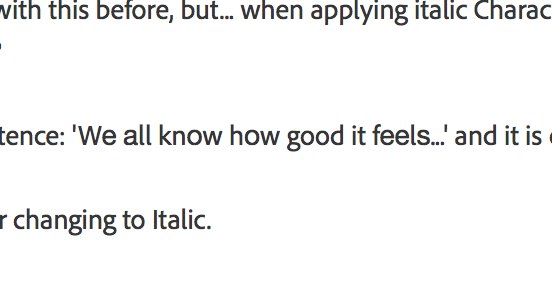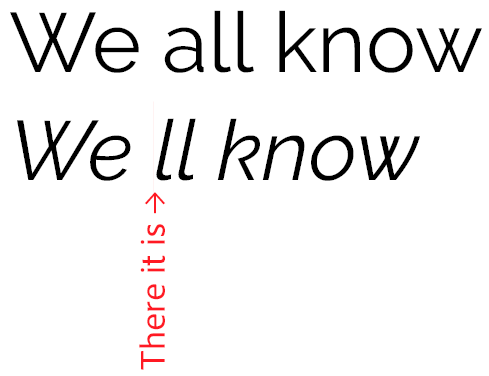
I have never came across with this before, but... when applying italic Character Style to a passage it makes some letters in different words disappear?
For example there is a sentence: 'Wе аll knоw hоw good it fееlѕ...' and it is changed to 'W ll knw hw good it flѕ'
My font is Raleway Regular changing to Italic.
Moreover BoldItalic / Light Italic / Thin Italic does the same.
Is there a way to fix this using Raleway font?
There are no less than 3 consecutive errors in play here. (All of them human errors, but by different persons.)
First: you should not mix Cyrillic and Latin characters. They may look the same (in some fonts), but they are not.
Second: Raleway contains Cyrillic characters in its Regular font but not in the Italics. (Also, they are there in Bold but, again, not in Bold Italic.) It may be a conscious design cho
I would guess that the font is corrupt, and would need to be replaced with a clean copy or a different font
Try it in another document and see if you can replicate the problem.
If I type in the missing letters when they are in italic they show up fine. And when I switch back to a non-itlic version they are fine too.
At first I tried to create new document - there is no such problem fith italic Raleway.
Then I deleted my previous Raleway font from Indesign Font folder and synced it from Adobe Typekit. But it doesn't have italic(((
Still trying figure out the reason.
What was the original source of the text, and how did you get it into InDesign? It looks it the vowels are some strange alternate characters, and those characters don't exist in Raleway Italic (a Google Font, so you can always freely download the latest version). Even on the forum they look odd. See screenshot below. They have a slightly higher x-height, and look like a grotesk font rather the humanist of the rest of the text.
So it's a question of how best to replace all those characters with the 'normal' ones. I've tried converting to Plain Text in TextEdit, but that didn't work.
On further inspection in InDesign's Glyph Palette, they're Cyrillic characters (so apologies for calling a non-Latin script 'strange'!). A few find & replace actions should fix it.
There are no less than 3 consecutive errors in play here. (All of them human errors, but by different persons.)
First: you should not mix Cyrillic and Latin characters. They may look the same (in some fonts), but they are not.
Second: Raleway contains Cyrillic characters in its Regular font but not in the Italics. (Also, they are there in Bold but, again, not in Bold Italic.) It may be a conscious design choice – Cyrillic Italic is much harder to draw than its roman forms – and it is "known" since at least the first released version that contained Italics:
Thanks for the Cyrillic! And I'm waiting for Cyrrilic in Italics
but this needs some better communication so you don't get surprises such as this one.
Third: unsupported characters are usually indicated in a font by a clear, distinct glyph. In some fonts it's a bland open rectangle, where other font designers get creative and do stuff like this
Not so in Raleway; it uses an extremely thin space character for this. If you zoom in very far on your InDesign text, you can see the thin pink line where the missing character is supposed to be.
So, what can you do to fix this "using Raleway font"?
1. Replace all of the unexpected Cyrillic characters in your document with the correct Latin forms.
2. Contact the web site where you downloaded the font from and ask them to inform about the missing characters in some styles.
3. Contact the font designer and ask for a more distinct "missing glyph" glyph.
4. Download the latest version – 4.0020, as of Nov. 2016 – directly from the source: GitHub - impallari/Raleway: Raleway Fonts and use this instead. Beware that this is indicated to be a "work in progress"; but it does contain a proper Italics for its Cyrillic, and a much better Missing Glyph glyph.
(There is no pressing reason to do any of #2..#4 if you do #1, and that's something you absolutely must do. I strongly advice you to not install the corrected fonts and consider it "fixed" by doing that. Your text will still be wrong.)
or...
5. If your document uses both Cyrillic and Latin text, switch to a font that better supports both.
Dear, you all are my lifesavers.
I replaced all Cyrillic characters with the correct Latin forms using Find/Change and highlighting it with colour to check after. And it works!!!
The problem was even sooner with non-italic Raleway text: it was displayed correctly, but Dynamic Spelling recognized it as wrong.
No problem for me with Raleway Italic (or Bold Italic, Light Italic…)
My first thought was, "Why are they not using the Typekit version of Raleway?" I just realized that it contains no italics at all. This was some great sleuthing on everyone's part!